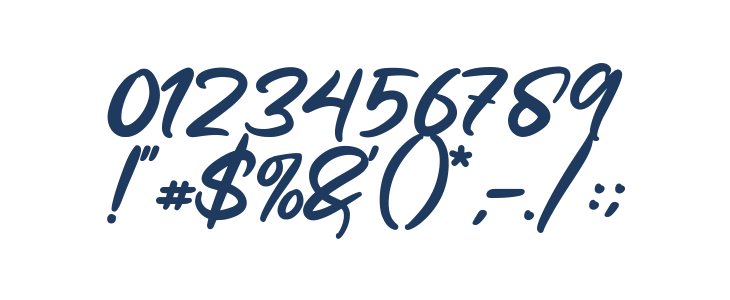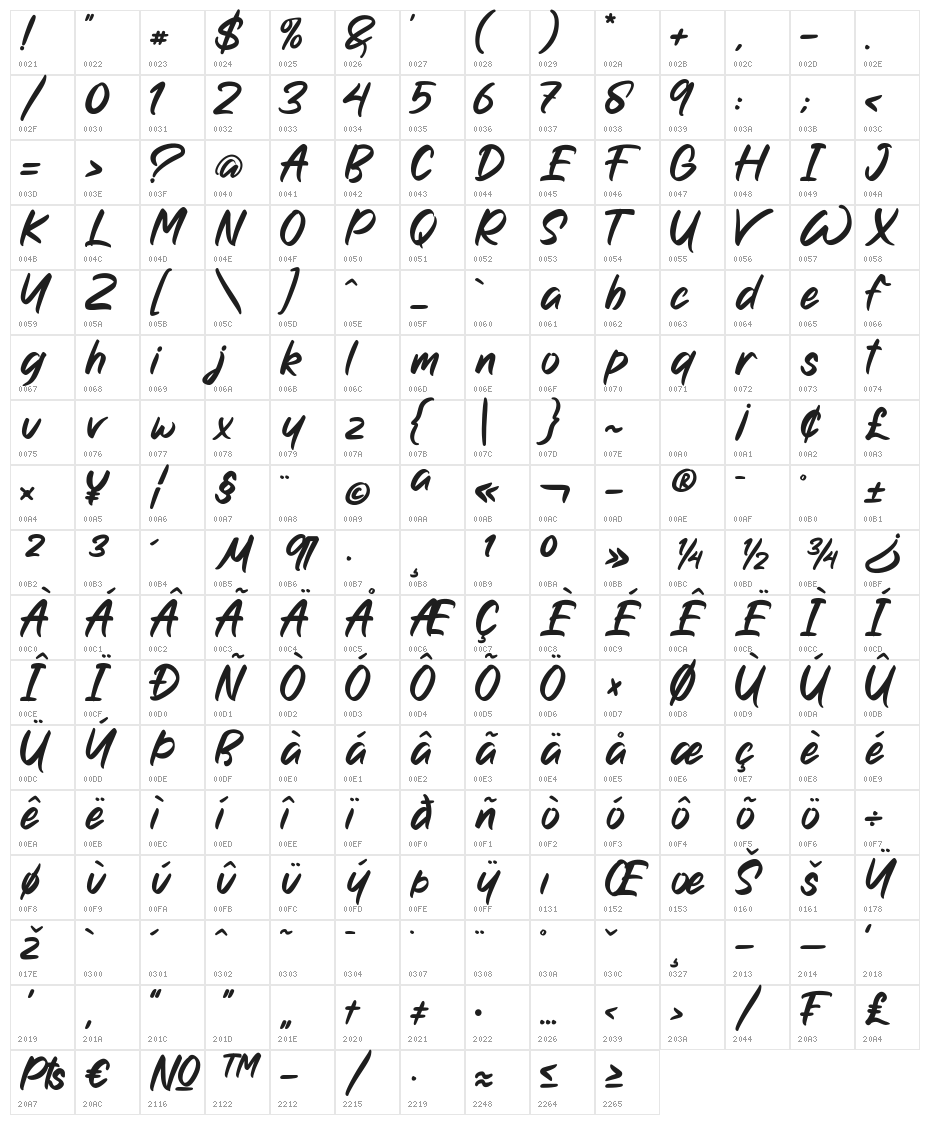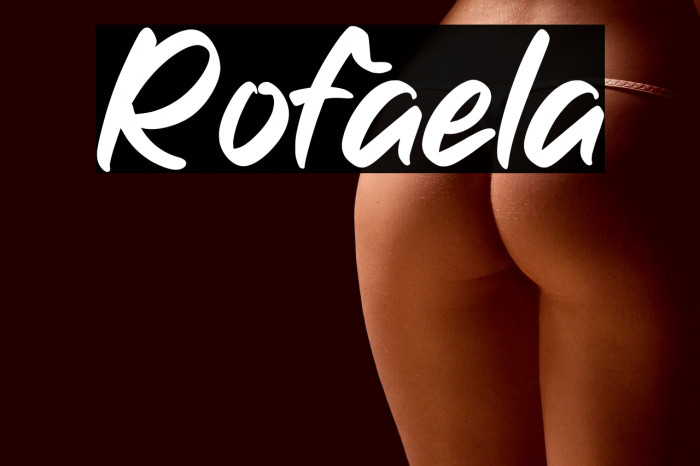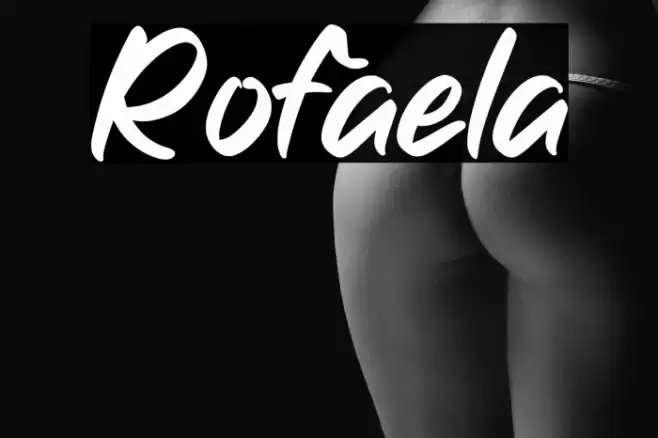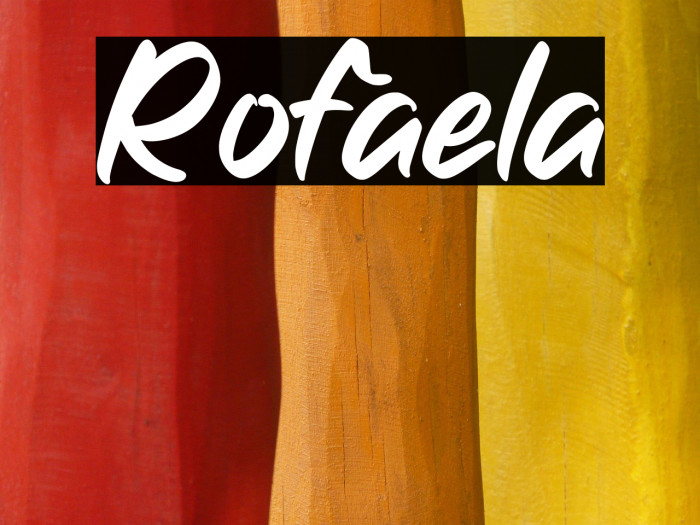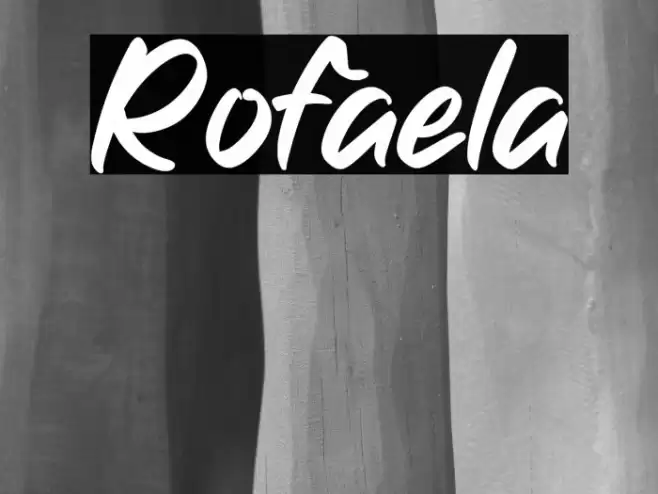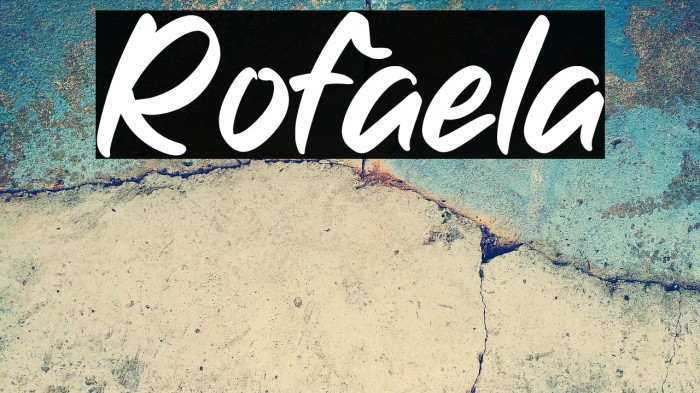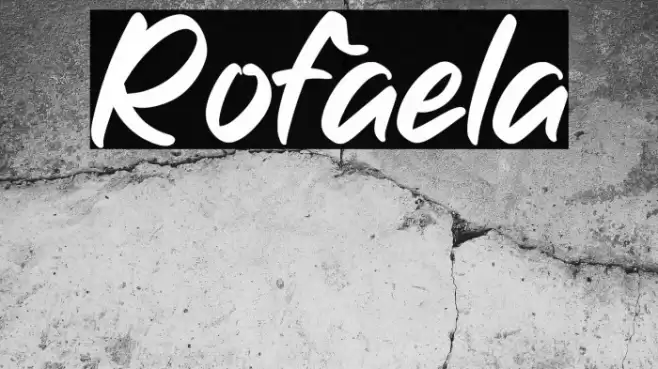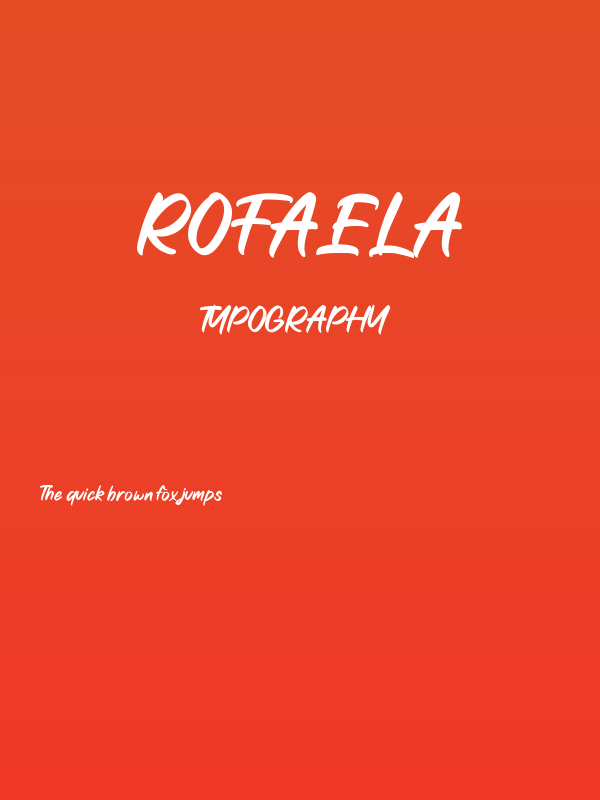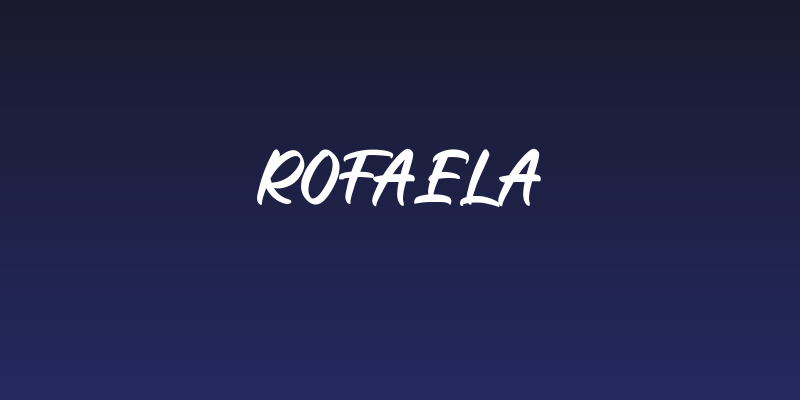
Rofaela Font
Rofaela Description
This font features a bold and dynamic script style, characterized by its fluid and energetic strokes. The letters are connected in a way that mimics natural handwriting, giving it a personal and informal feel. The uppercase letters are slightly more structured, while the lowercase letters exhibit a playful and casual flair. The numerals and special characters maintain the same lively and expressive quality, making the font versatile for various creative applications. Its overall appearance is both modern and artistic, suitable for projects that require a touch of personality and flair.